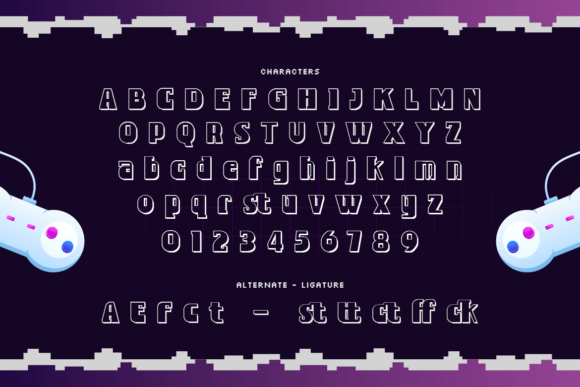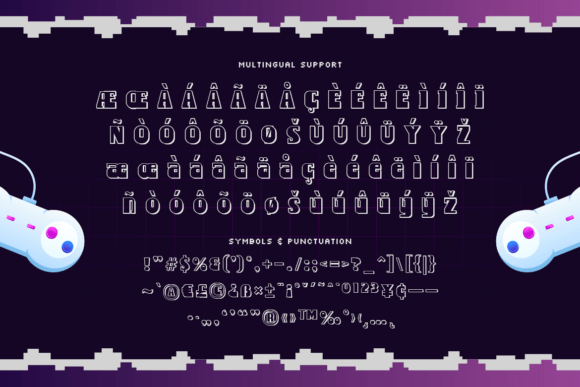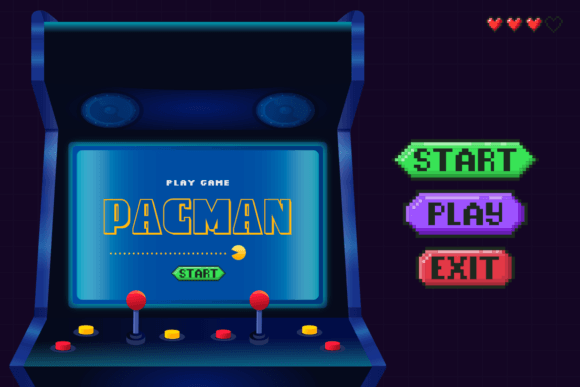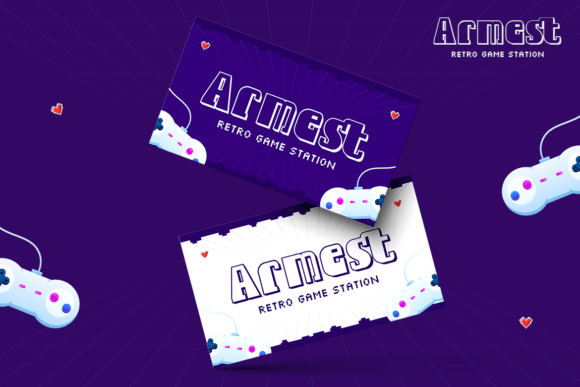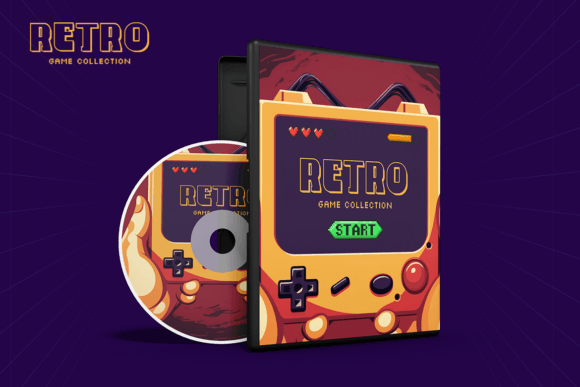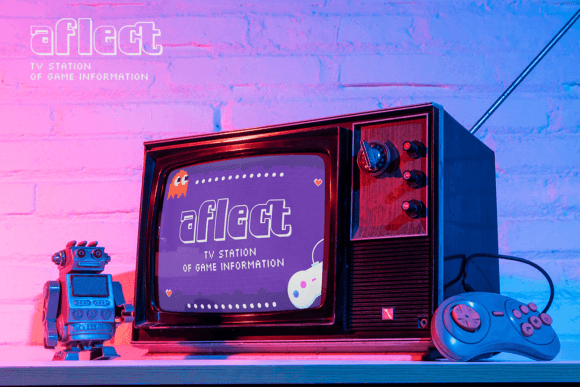
Introduction to Rolegict Font
Remember that moment when you’re working on a creative project, and you just can’t seem to find the right font to capture the essence of your vision? The perfect typeface can make all the difference in elevating your design from ordinary to extraordinary. That’s where the Rolegict Font comes in – a game-changing typography solution that’s about to revolutionize your design pursuits.
With its powerful letters and captivating shadow effects, the Rolegict Font is the ultimate design resource for creating high-quality, visually striking graphics that demand attention. Whether you’re working on a free download or a premium print project, this versatile font is sure to bring your creative ideas to life with its contemporary and trendy aesthetics.
From evocative headlines to invigorating branding initiatives, the Rolegict Font is the perfect tool for designers looking to take their projects to the next level. Its striking interplay of light and shadows not only boosts legibility but also adds a touch of sophistication, making it an indispensable asset for any design toolkit.
Key Features of Rolegict Font
- Unique, modern design aesthetic that sets it apart from other fonts
- Perfect for use in digital and print media, including logos, graphics, and text-based designs
Honest Review: Rolegict Font
As a designer, I’m always on the lookout for high-quality design resources to elevate my creative projects. Recently, I stumbled upon the Rolegict Font, and I must say, it’s been a game-changer for my latest design endeavors.
- What works well: ✨ The Rolegict Font offers a wide range of styles and weights, making it perfect for designing logos, headings, and body text. Its modern and sleek design is sure to add a touch of sophistication to any creative project.
- ⚠️ The font may not be suitable for small-scale designs, as the intricate details can get lost. It’s best used for larger projects where the font can be fully appreciated.
- ⚠️ The font’s customization options are limited, which may not be ideal for designers who prefer a high degree of control over their design elements.
Overall, I’m impressed with the Rolegict Font’s high quality and versatility. While it may have some limitations, it’s an excellent design resource for creative projects that require a touch of modern elegance. I highly recommend giving it a try!
Rolegict Font is commonly used for creative projects such as:
- Infographics and charts